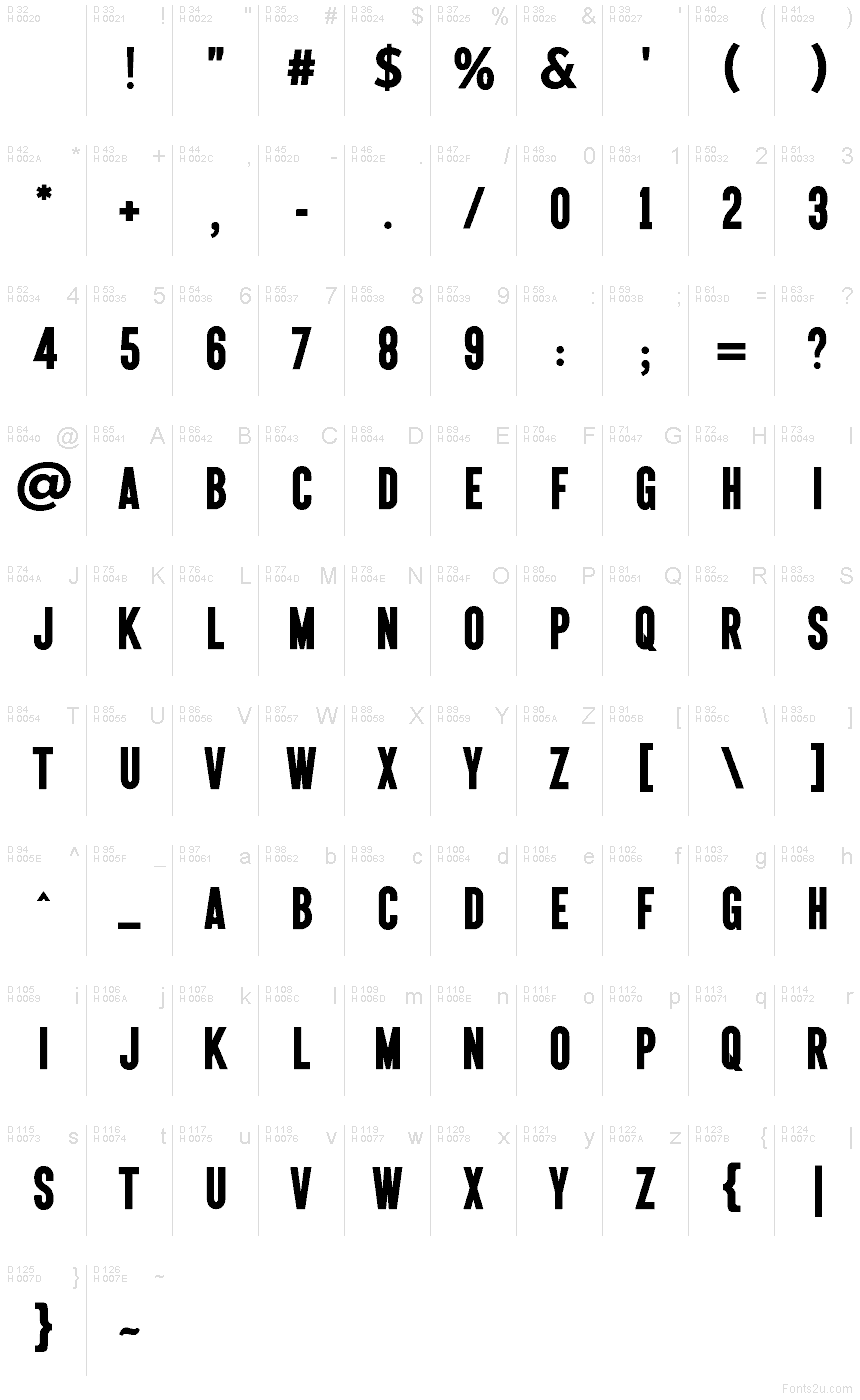
Weight
Weight font by Graphicxell is a free sans serif font that hits like a kettlebell. Blocky forms, near-vertical sides, and tight spacing pack each word with presence, so headlines read as solid bars of ink. The strokes feel dense and confident—no frills, just high-impact clarity that holds together at large sizes and across noisy backgrounds.
Using Weight, your message jumps off posters, gym branding, sports graphics, event flyers, packaging, and YouTube thumbnails. This free font thrives on short phrases and punchy calls to action, keeping letters sturdy and readable from a distance. Try pairing it with a light, open sans for body copy to let the contrast breathe, or track it slightly open for extra swagger on big titles.